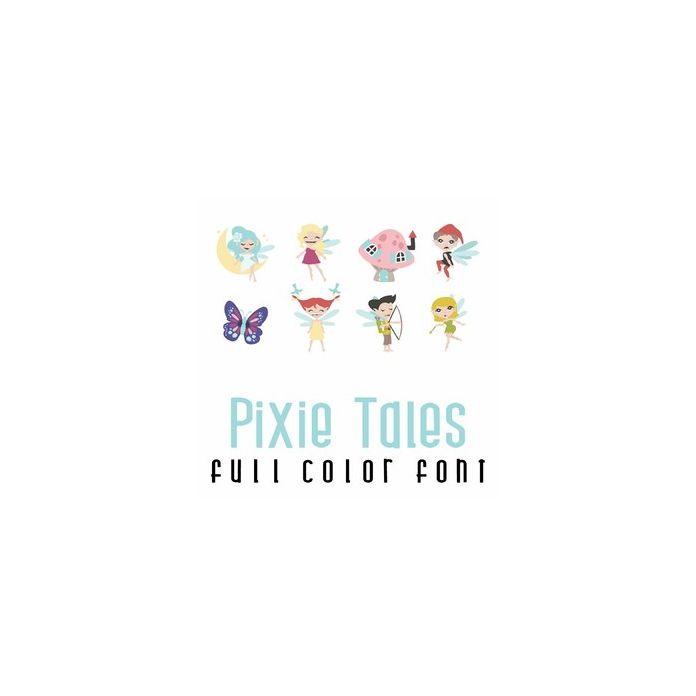
This adorable full-color doodlebat font features 31 cute pixies, flowers and Spring items. Perfect for cards, crafts, gifts, decor, scrapbook pages, planner stickers, and more! Glypes are A-Z and 0-4.